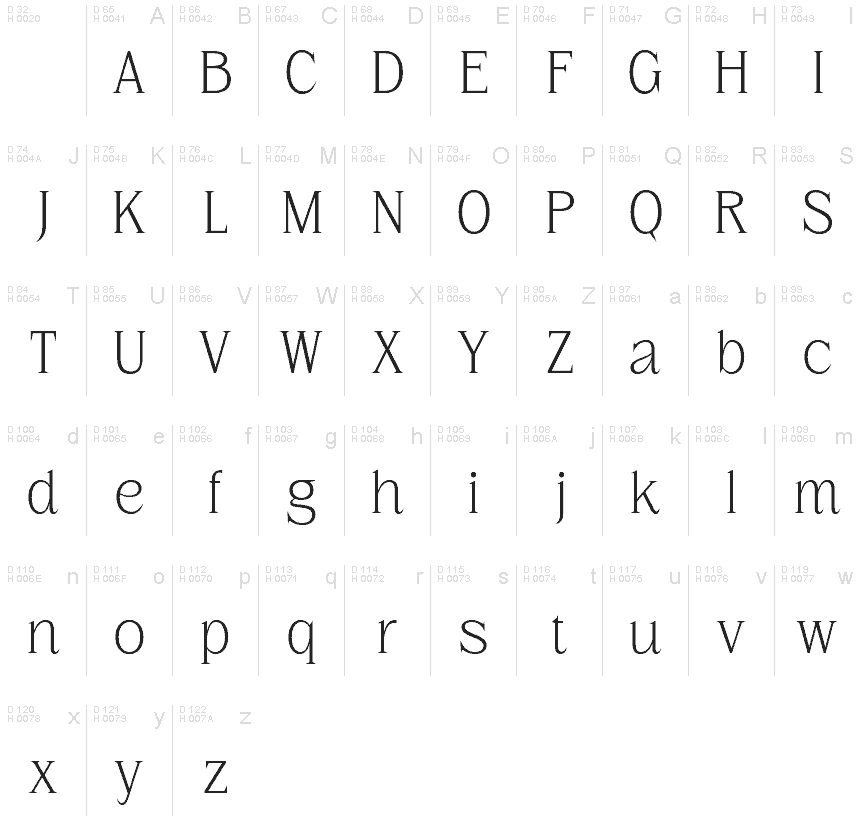
CS Lucien Regular Demo
CS Lucien font by Craft Supply Co. is a free serif font that embodies elegance and sophistication. The light font features refined serifs, classical influence, and exquisite details that lend it a luxurious and professional tone of voice. Curved in the most subtle manner, each corner is sophisticated and graceful.
The feminine serif typeface instantly persuades customers when used for logos, packaging designs, apparel pieces, social media posts, advertisements, posters or greeting cards. Business cards and letterheads are more wonderful ideas.